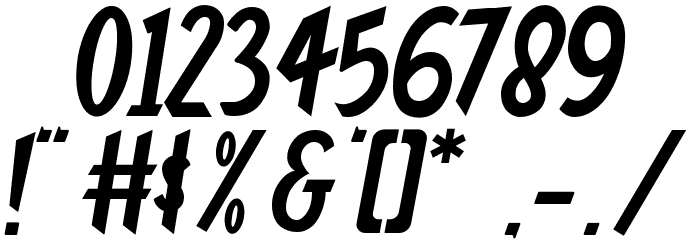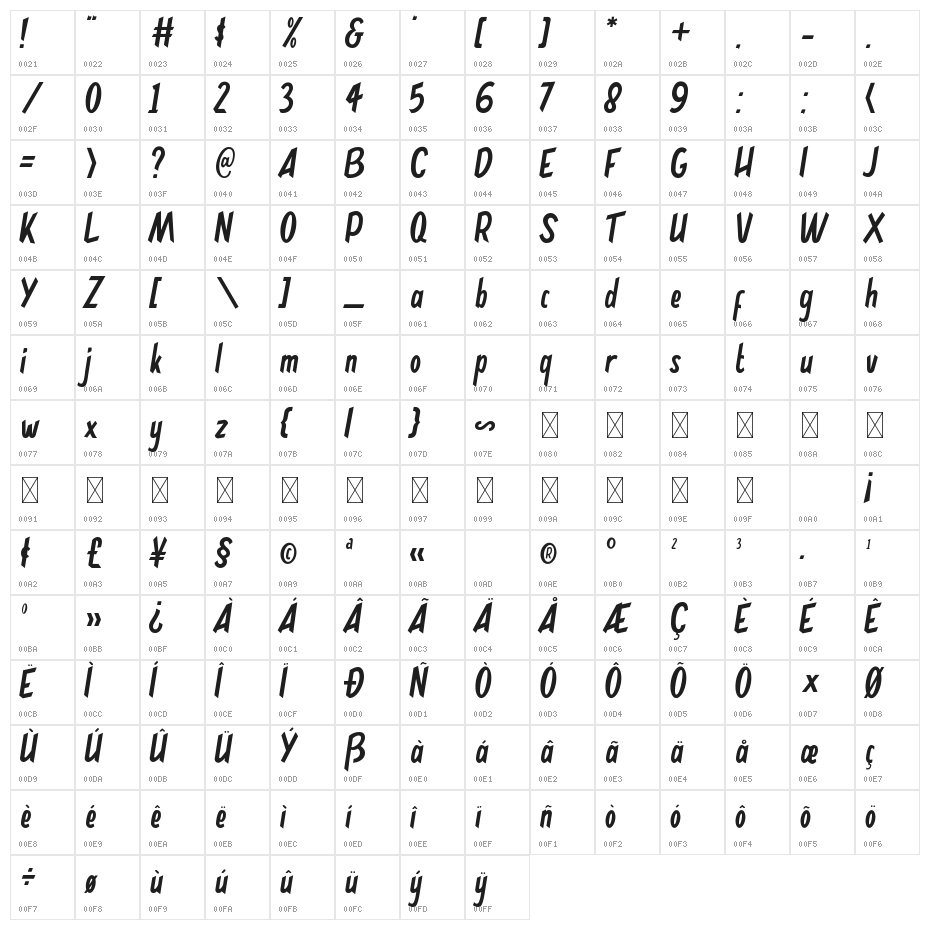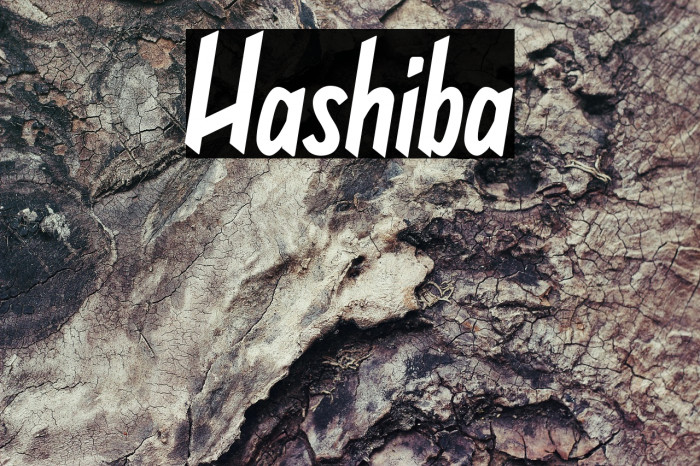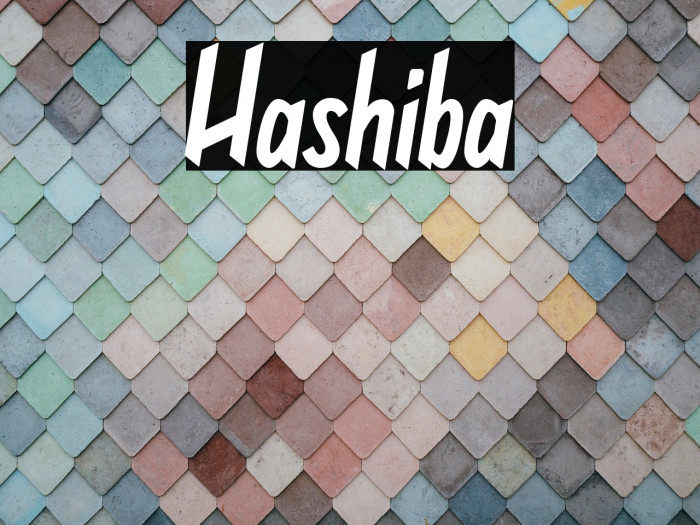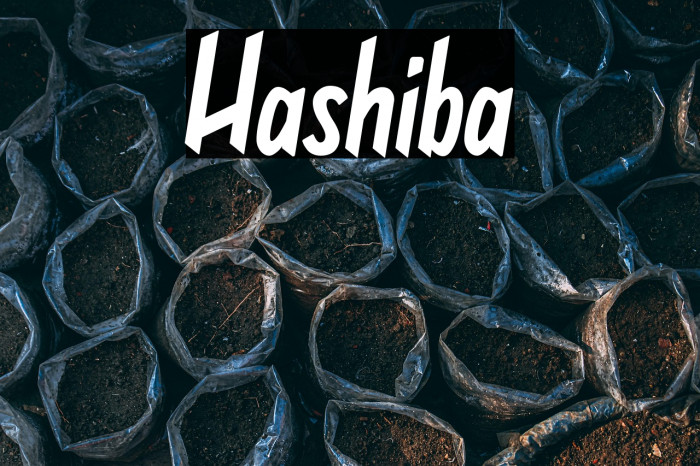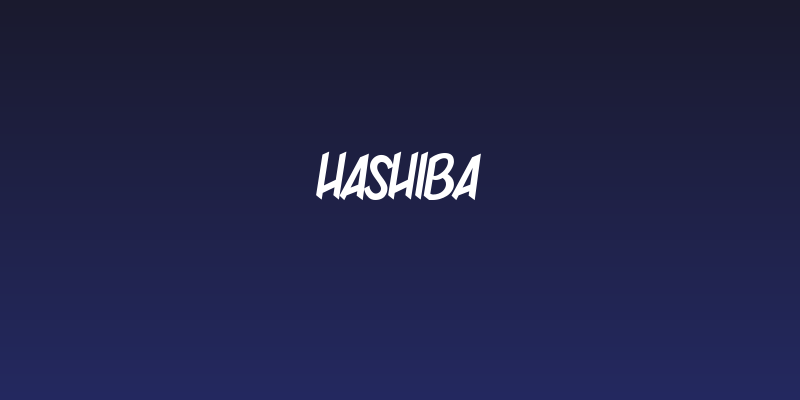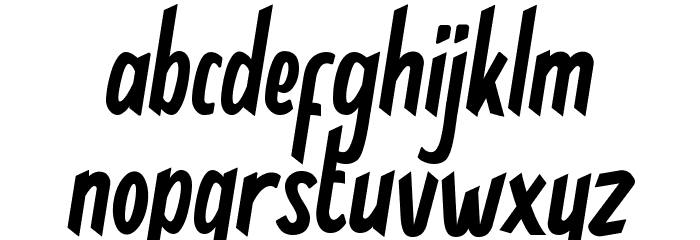
Hashiba Font
Hashiba Description
This font features a dynamic and energetic style with a slight forward slant, giving it a sense of motion and urgency. The characters are bold and slightly condensed, with a playful yet assertive appearance. The uppercase letters are tall and commanding, while the lowercase letters maintain a consistent height, ensuring readability. The numerals are distinct and clear, matching the overall boldness of the alphabet. Special characters are well-integrated, maintaining the font's cohesive style. The strokes are consistent in width, providing a uniform look across all characters.